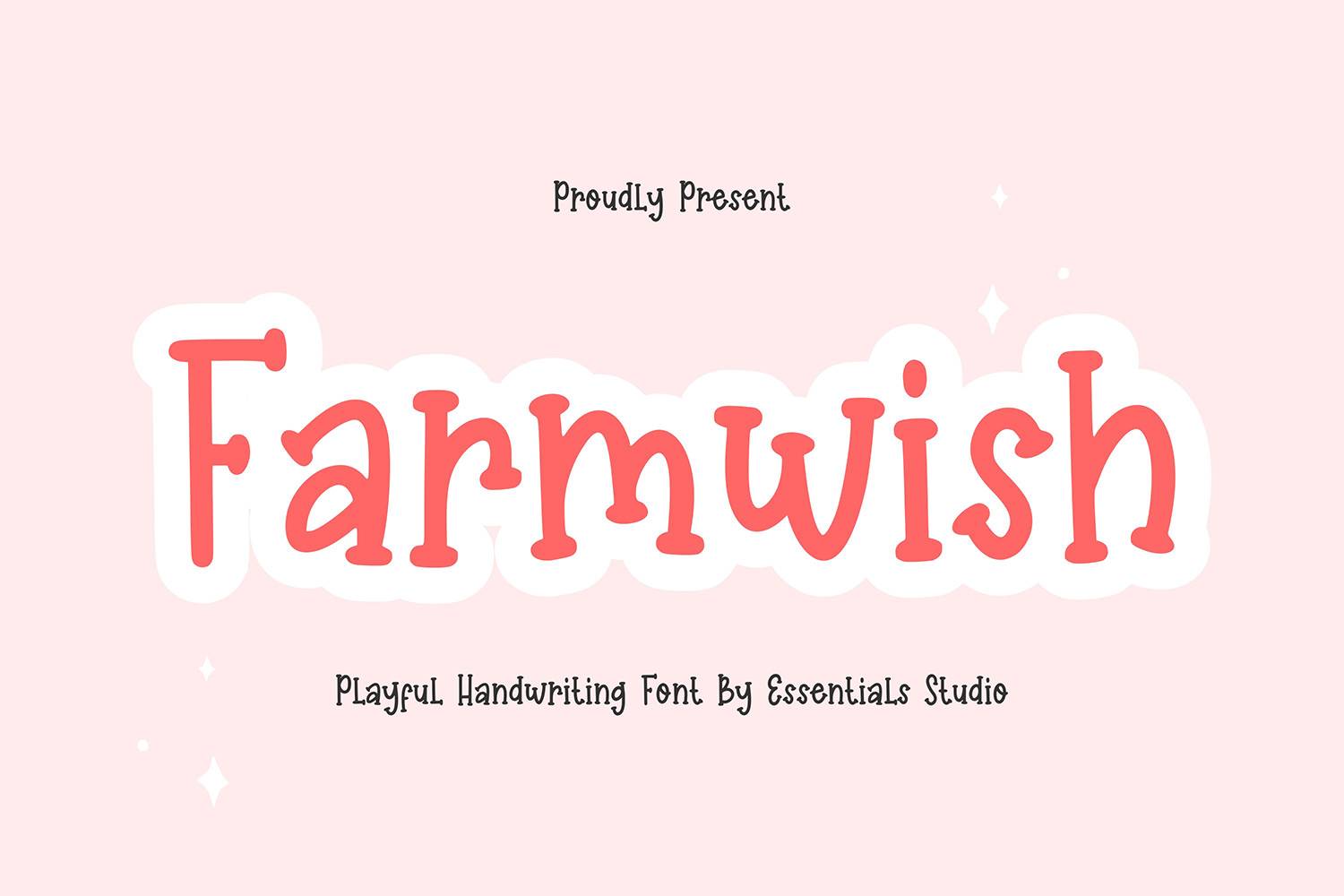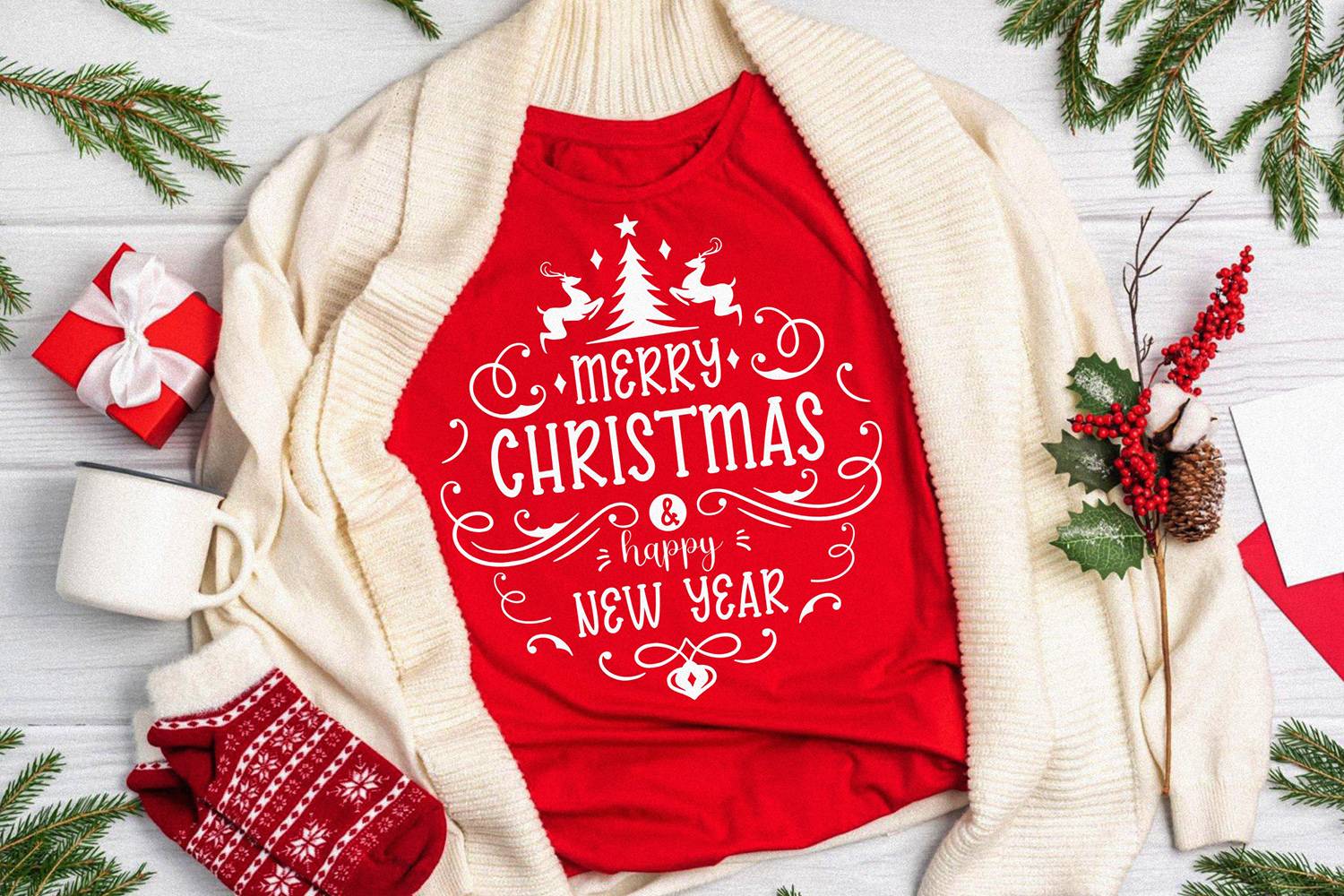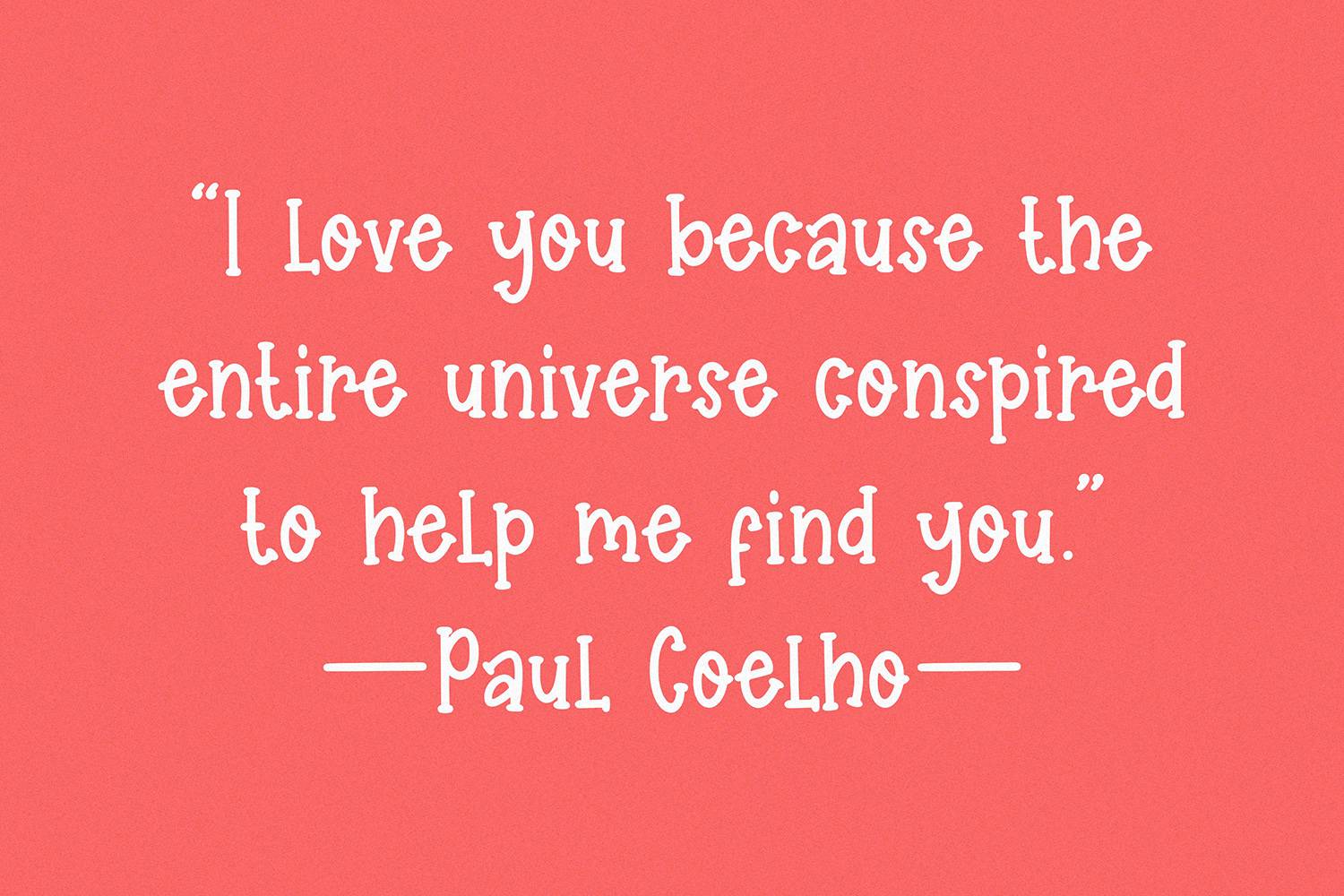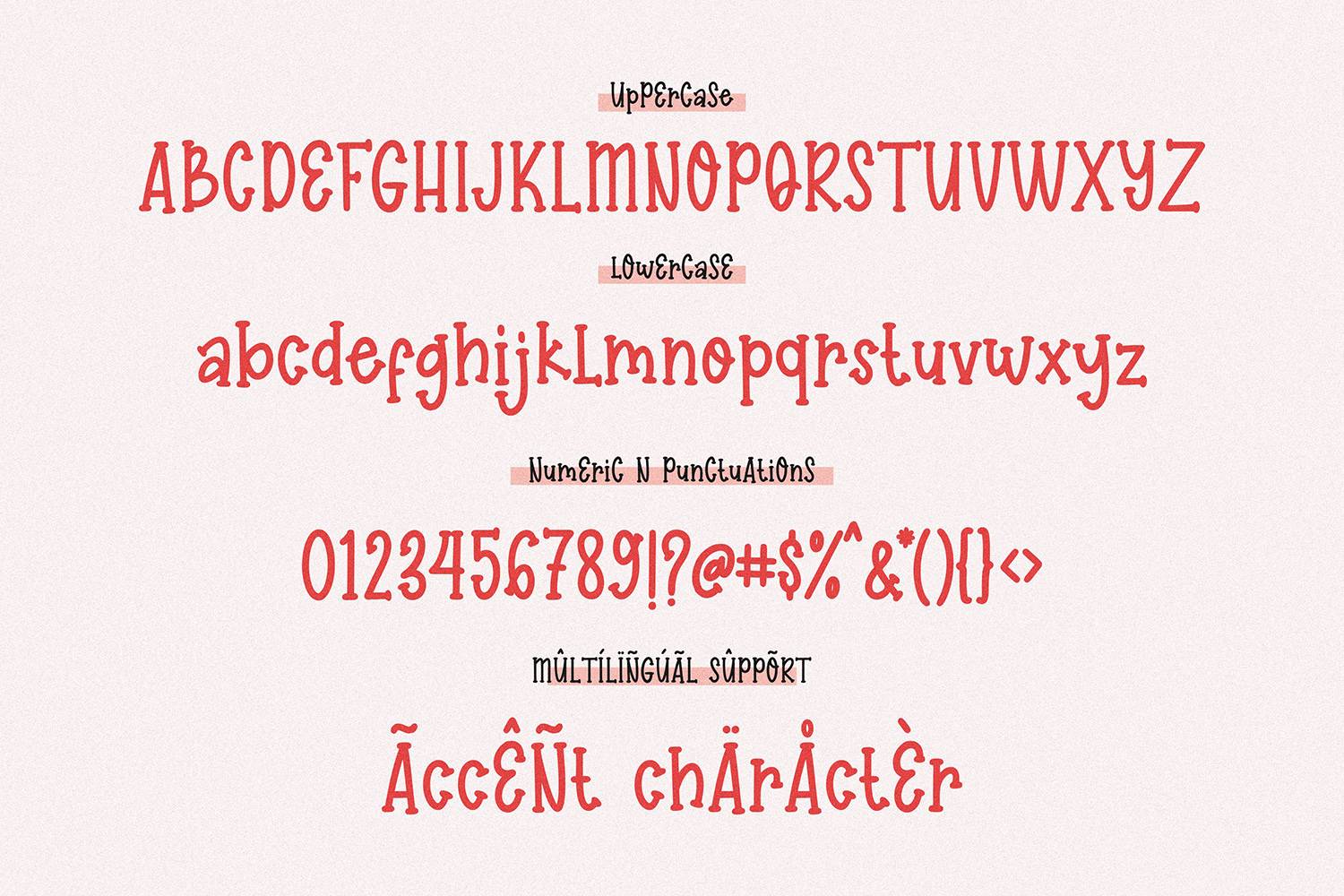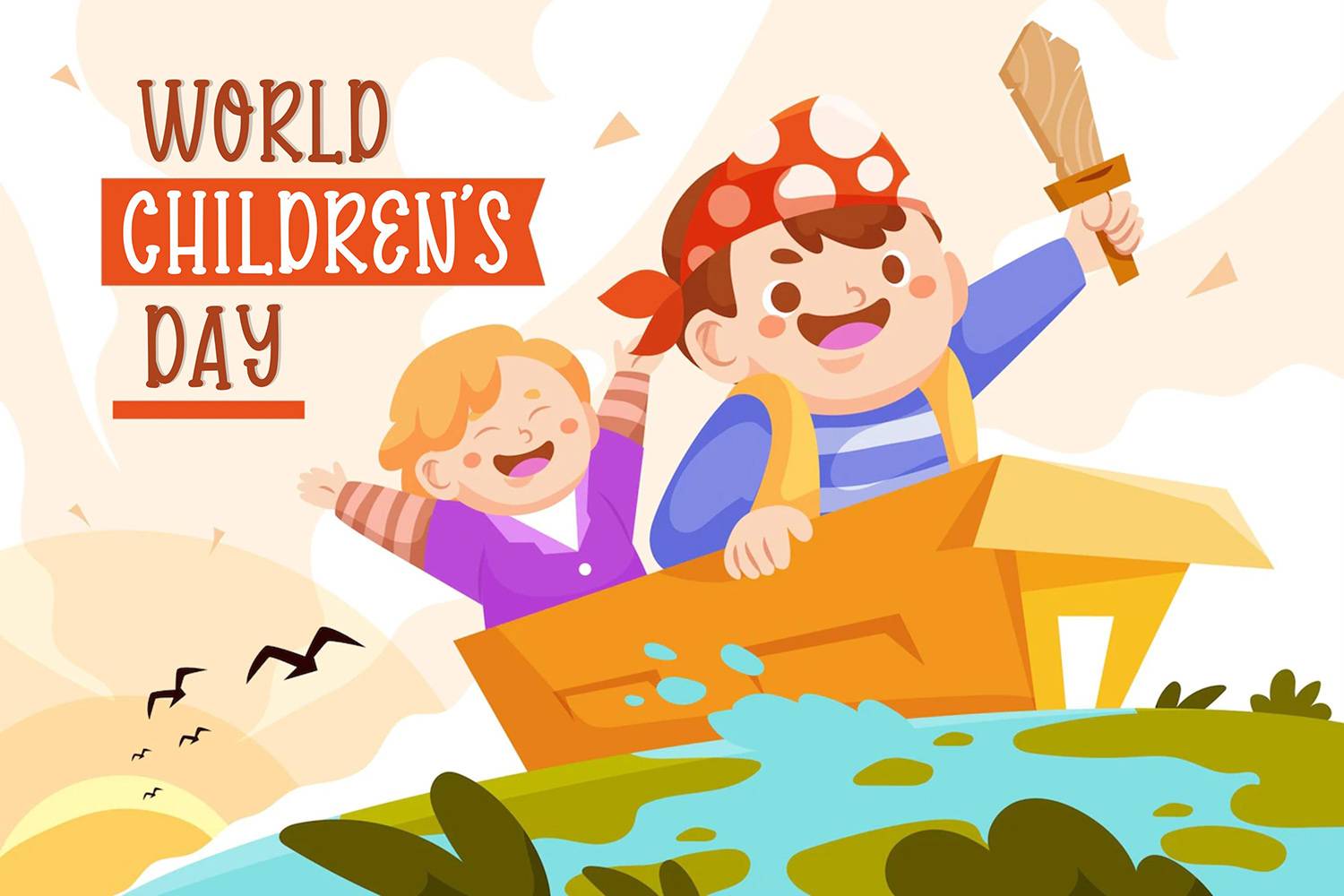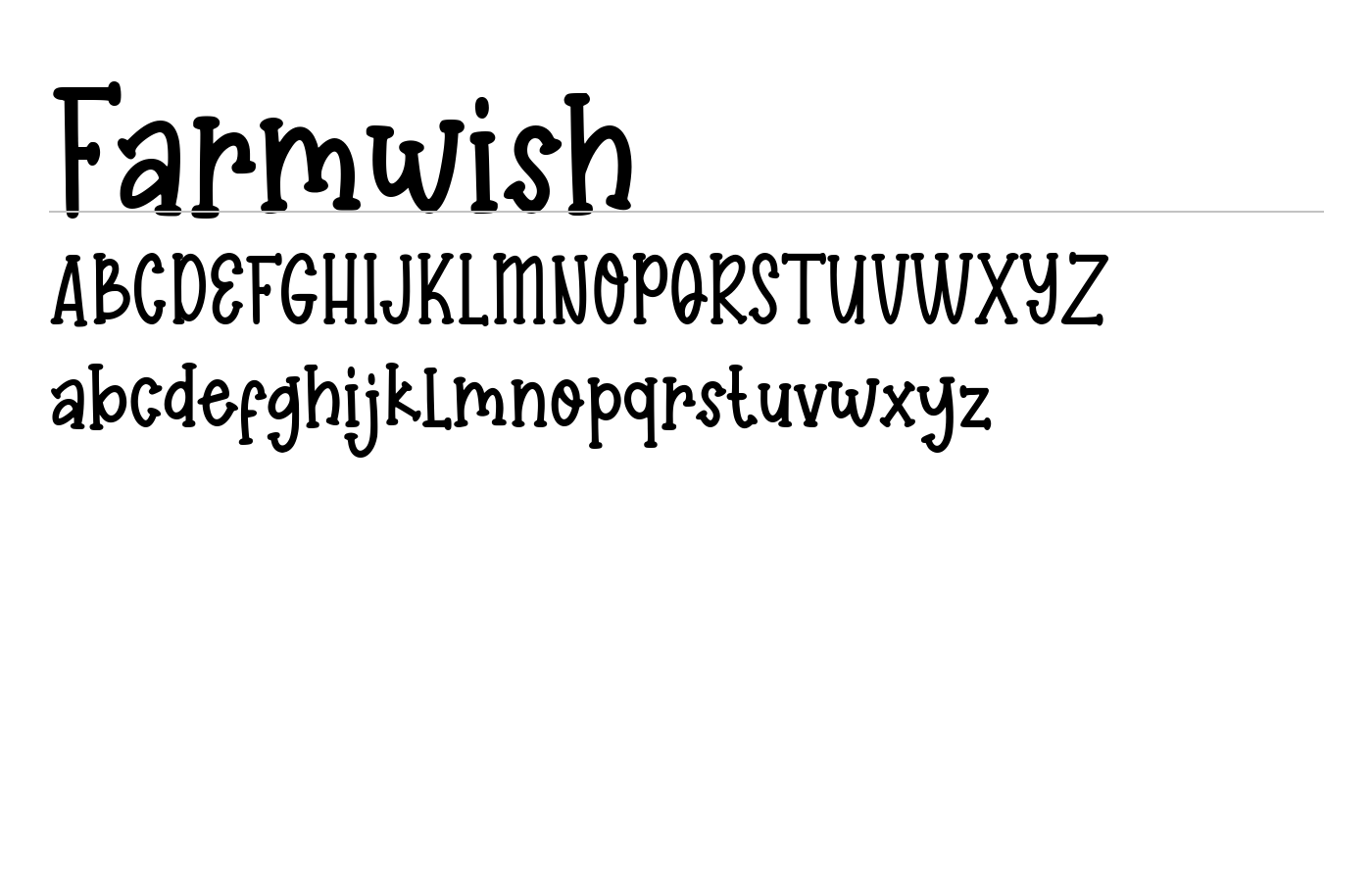
Farmwish is a playful and casual sans serif font with a slightly condensed width and a friendly, hand-drawn feel. Its irregular stroke terminals and quirky letterforms make it ideal for designs seeking a warm, approachable, and informal vibe, perfect for children’s materials, rustic branding, or lighthearted editorial projects. This font adds personality and charm while remaining readable and fun.
Farmwish Font
About Farmwish Font
| Font family | Farmwish Font |
| Designer | Annas Rifky Anhar |